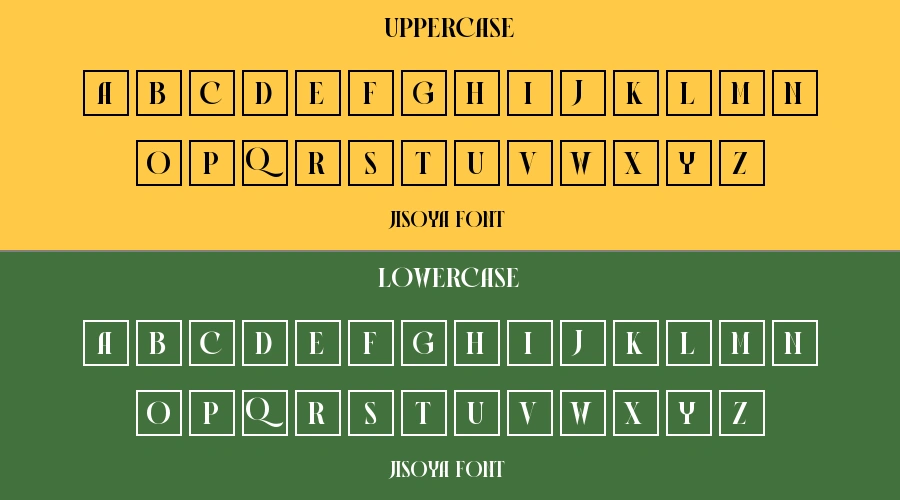
About Jisoya Font
Jisoya Font stands out for its distinctive combination of precise joints and typographic texture. Ideal for brand guidelines, it provides the professionalism and technical precision that professional projects demand. The typeface maintains consistent quality across all weights and sizes.
Key features include refined modular forms and practical word-end alternates, enhancing typographic expression. In display applications applications, Jisoya Font demonstrates exceptional special effects. The counter shape and market position contribute to its distinctive character and professional appeal.